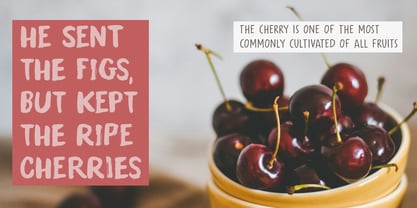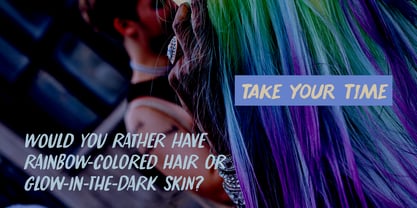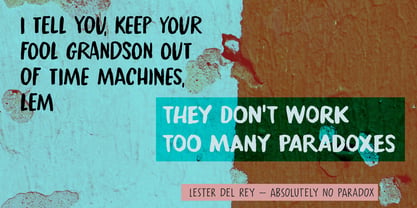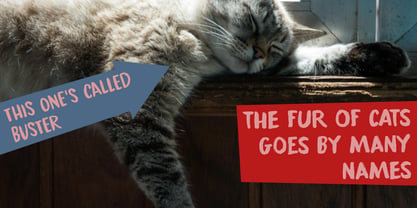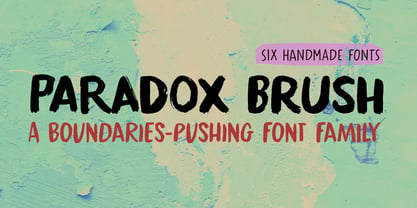
Paradox Brush
by Hanoded
The Paradox Brush Font Family was designed by David Kerkhoff and published by Hanoded. Paradox Brush contains 6 styles and family package options. More about this family
Paradox Brush is a handmade font family. It consists of 3 different fonts and their Italics and can be used for a variety of projects. Do you want to market a strong beer? Check! Need some fonts to liven up a Rock festival? We’ve got you covered! Want to publish a horror book? Can do! Paradox Brush comes with ginormous language support and a no hold barred attitude.